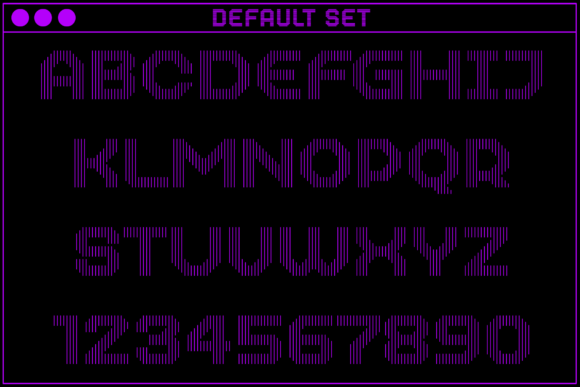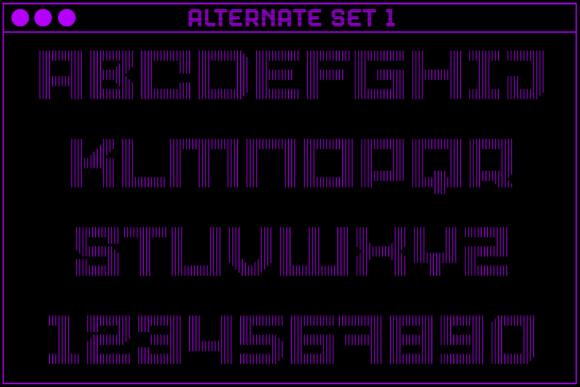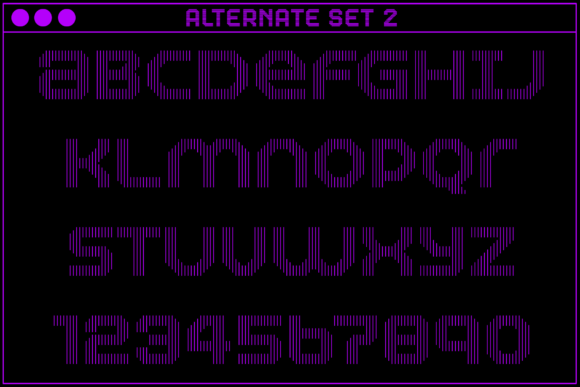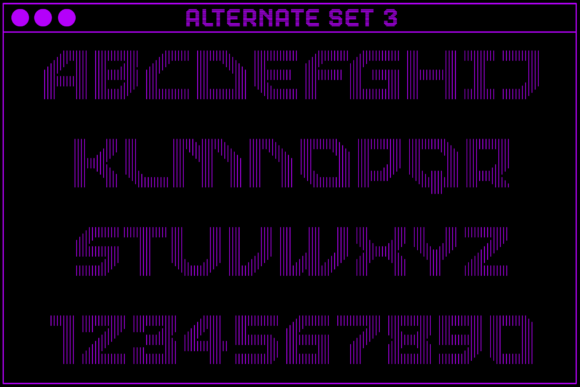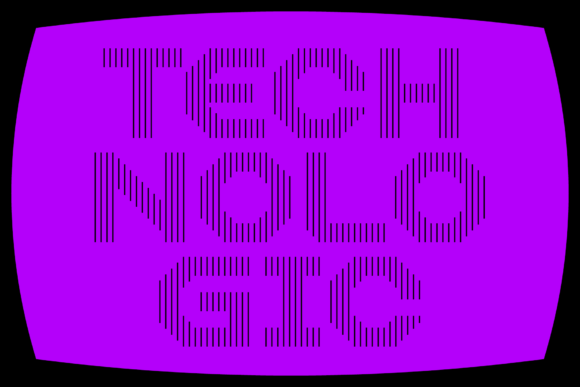
Introduction to MultiType Lines Wide 3 Font
Have you ever stared at a blank canvas, struggling to find the perfect font to bring your creative project to life? We’ve all been there. But what if you could add a dash of uniqueness and playfulness to your design, setting it apart from the rest? That’s where MultiType Lines Wide 3 Font comes in – a quirky, pixelated font that’s sure to make a statement.
| 👤 Author | cyanotype |
With its cool, distorted shape and high-quality design, MultiType Lines Wide 3 Font is the perfect addition to any creative project. Whether you’re working on a graphic design, a logo, or even a social media post, this font is sure to add a touch of personality and whimsy. And the best part? It’s free to download and use, making it an invaluable resource for designers of all levels.
But what really sets MultiType Lines Wide 3 Font apart is its PUA encoding, which allows for seamless access to all glyphs and swashes. This means you can customize your design to perfection, without any hassle or frustration. So why settle for a bland, generic font when you can add some visual interest and flair with MultiType Lines Wide 3 Font?
Key Features of MultiType Lines Wide 3 Font
- MultiType Lines Wide 3 Font features a transparent background, allowing for seamless integration with various design elements.
- Unique characteristic: This font features a wide range of line styles, making it perfect for creative projects that require a dynamic and expressive look.
- Perfect for use in a variety of design applications, including logos, branding materials, and digital art pieces.
Honest Review: MultiType Lines Wide 3 Font
I recently stumbled upon the MultiType Lines Wide 3 Font, and I’m excited to share my honest review with you. This font is a great addition to any designer’s toolkit, and I’m impressed with its features and versatility.
- ✨ High-quality design: The MultiType Lines Wide 3 Font is beautifully crafted with clean lines and a modern aesthetic.
- ⚠️ Limited font weights: While the font is great for headings and titles, it’s not as versatile for body text, which can be a limitation in some creative projects.
- ⚠️ Not suitable for small text: The font’s bold lines can make it difficult to read in small text sizes, so it’s best used for larger headings and titles.
Overall, I’m impressed with the MultiType Lines Wide 3 Font. It’s a high-quality design resource that’s perfect for creative projects that require a modern, bold aesthetic. While it has some limitations, it’s still a great addition to any designer’s toolkit.
The MultiType Lines Wide 3 Font is a free download perfect for adding a touch of elegance to your creative project. With a transparent background, you can easily overlay it on top of any image or design element.
Use the MultiType Lines Wide 3 Font in conjunction with a high-quality image or design element to create a visually appealing design. Experiment with different font sizes and colors to add depth and interest to your design.
The MultiType Lines Wide 3 Font is perfect for use in creative projects such as wedding invitations, business cards, and brochures. It’s also great for use in presentations and documents where a high-quality font is needed.